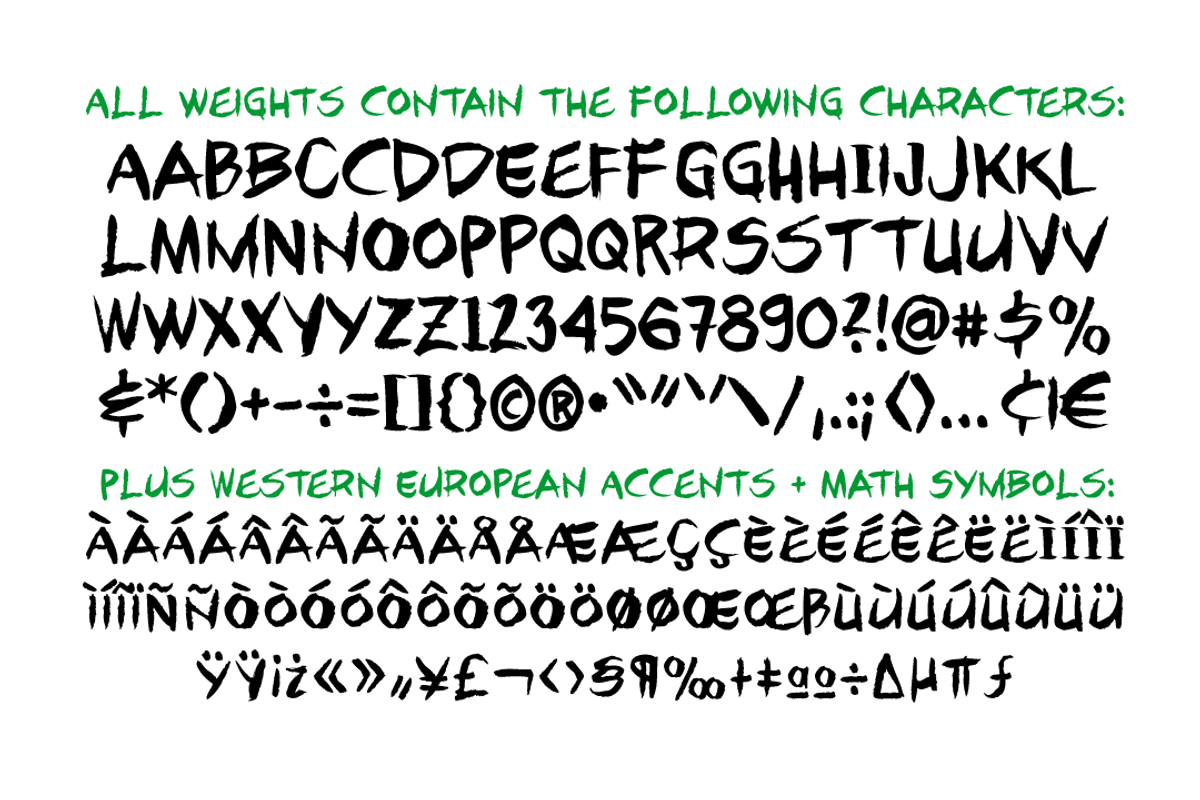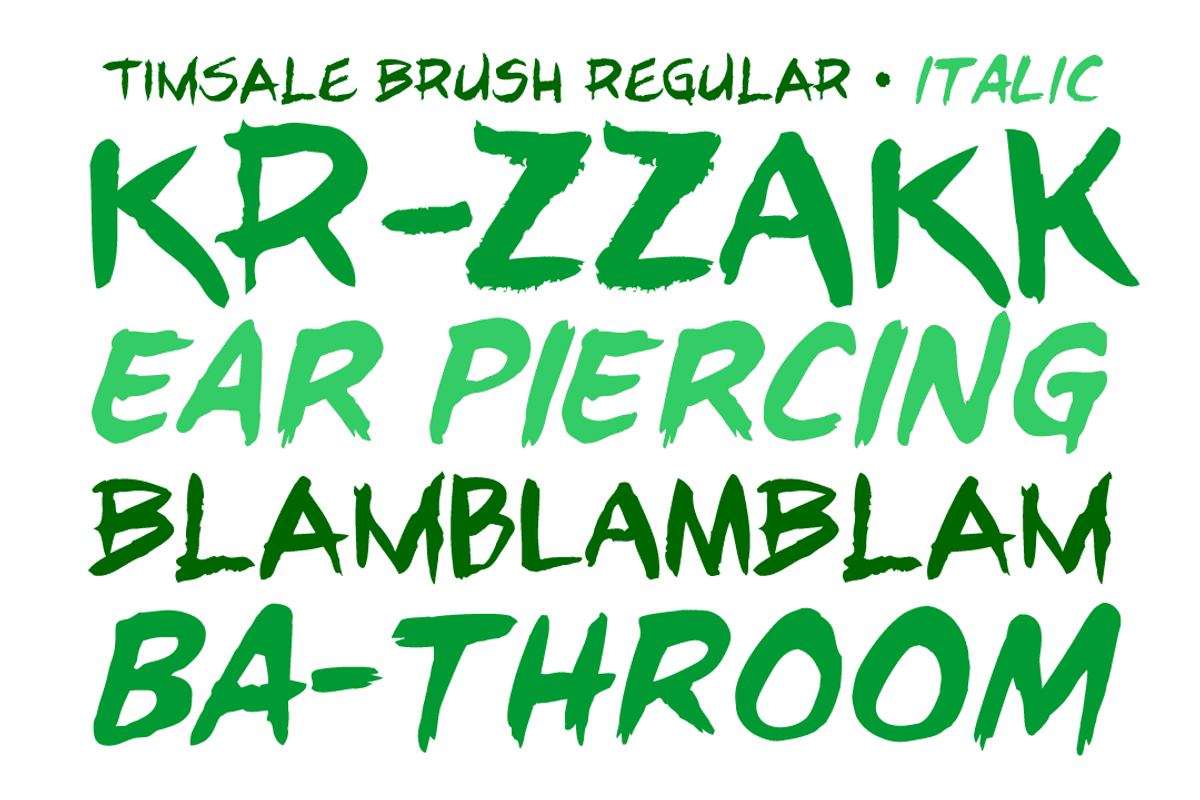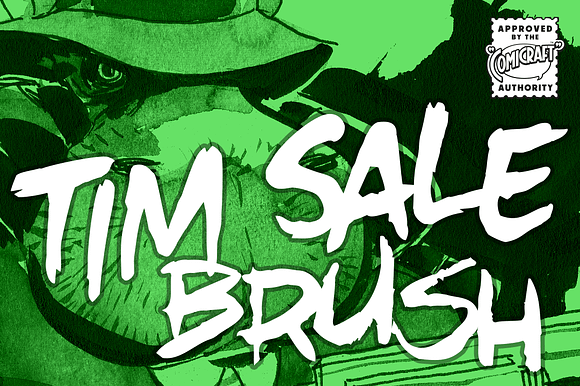
Tim Sale Brush
These handletterered brush fonts were created by Tim Sale and fontmeister JG Roshell for our bestselling book, TIM SALE: BLACK AND WHITE!
- CCTimSaleBrush Regular
- CCTimSaleBrush Italic
Tim Sale Brush by Comicraft Fonts fits naturally into Branding, posters, packaging, typography.